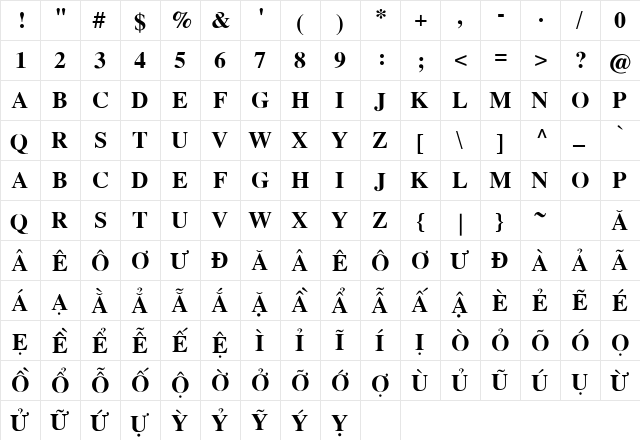
.VnTimeH Bold Font Preview
.VnTimeH Bold
Design Context for .VnTimeH Typeface
.VnTimeH takes a measured approach to typography — its balanced proportions and neutral character make it a reliable workhorse for both digital and print work. The heavy weight commands attention and anchors typographic hierarchies.